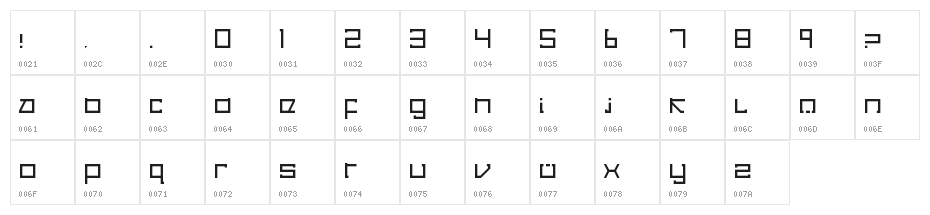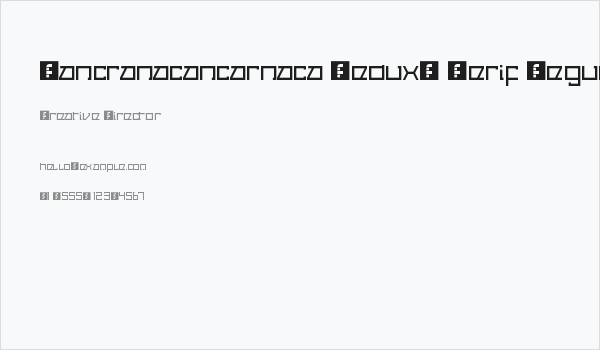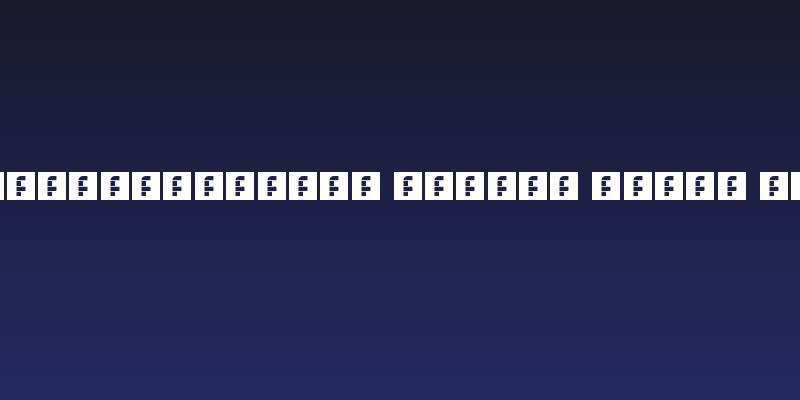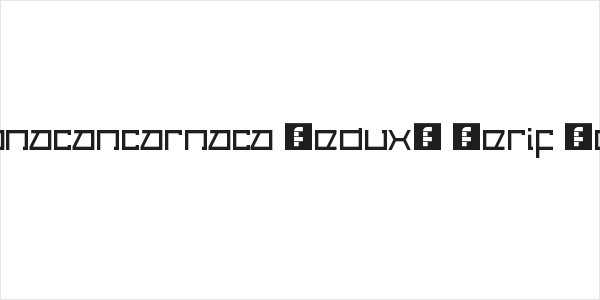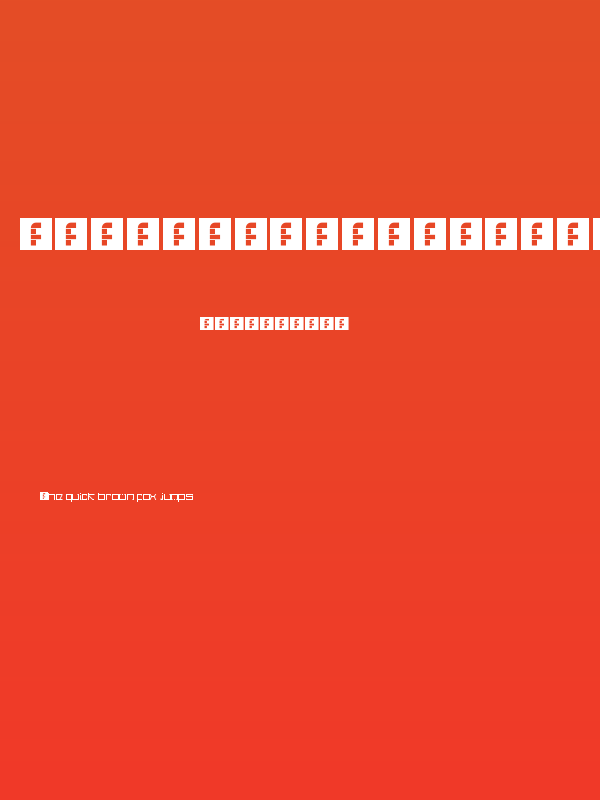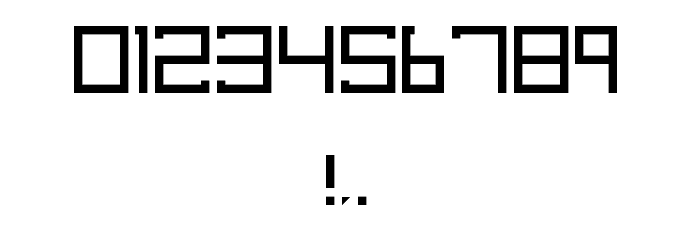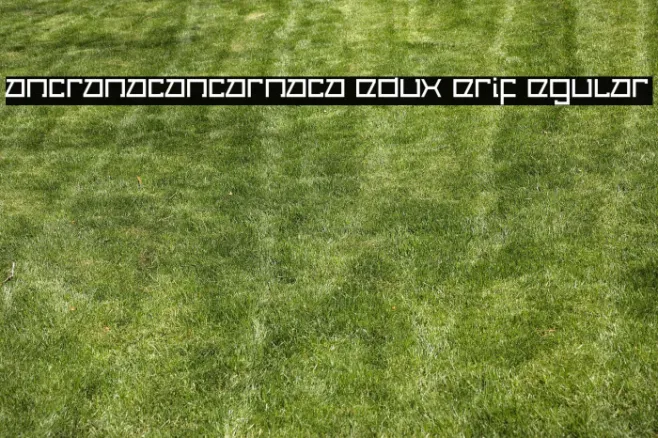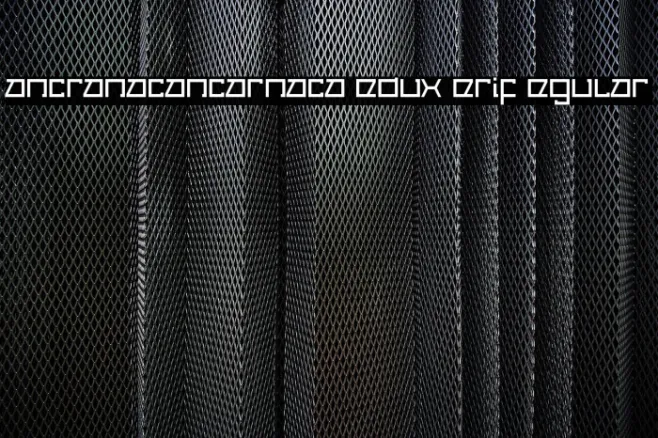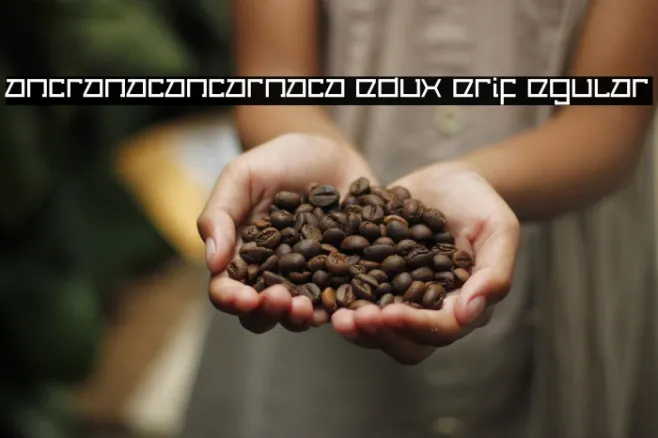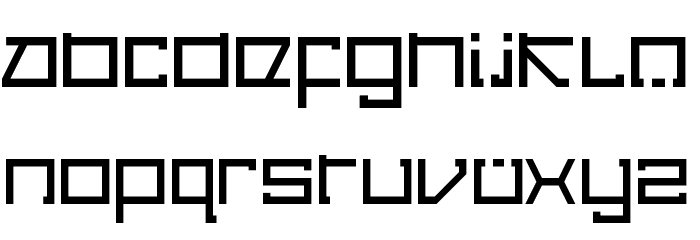
Cancranacancarnaca Redux: Serif Regular Font
Cancranacancarnaca Redux: Serif Regular Description
This font features a modern, geometric design with a distinct block-like appearance. Each character is crafted with sharp, angular lines and a consistent stroke width, giving it a digital or futuristic feel. The uppercase and lowercase letters maintain a uniform height, contributing to a cohesive and structured look. The numerals and special characters follow the same design principles, ensuring a seamless integration across different text elements. The overall style is minimalistic yet bold, making it suitable for projects that require a strong visual impact.
| Use Case | Logos, Headlines, Posters |
| Proposed Projects | Ideal for technology branding, digital interfaces, video game design, and futuristic-themed posters. |